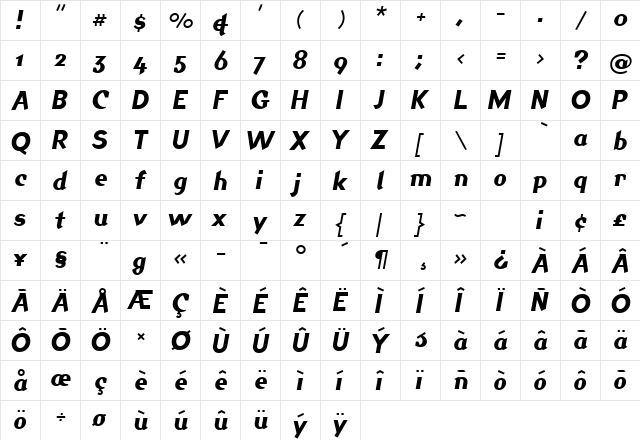
JackdawItalic Regular
Design Context for JackdawItalic Typeface
JackdawItalic is a composed and adaptable typeface that performs quietly and consistently across a wide range of design contexts. Its italic angle brings a sense of urgency and motion to the letterforms.
Pro Tip: Try JackdawItalic for annotation and caption copy alongside an upright companion — the contrast in angle creates a dynamic but ordered typographic system.